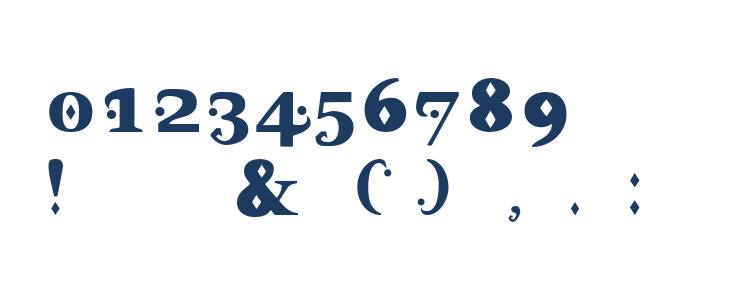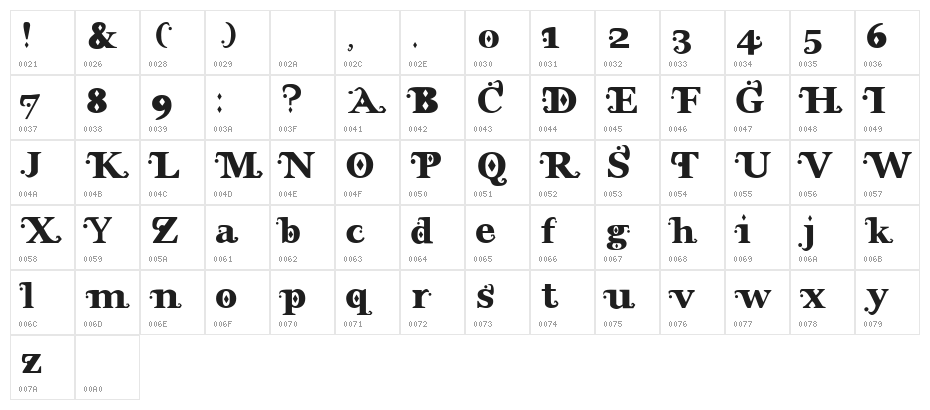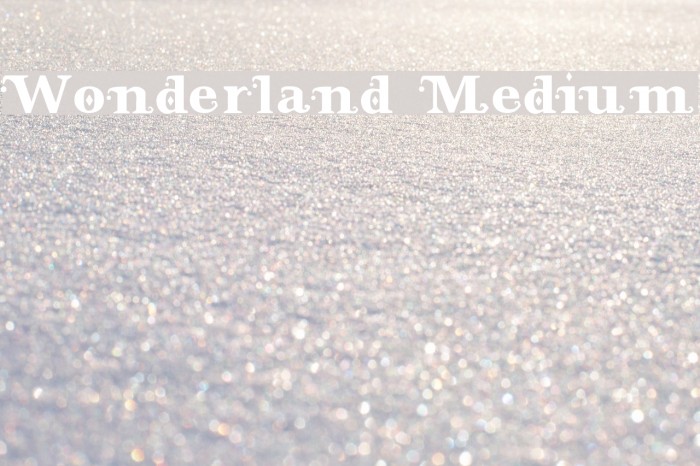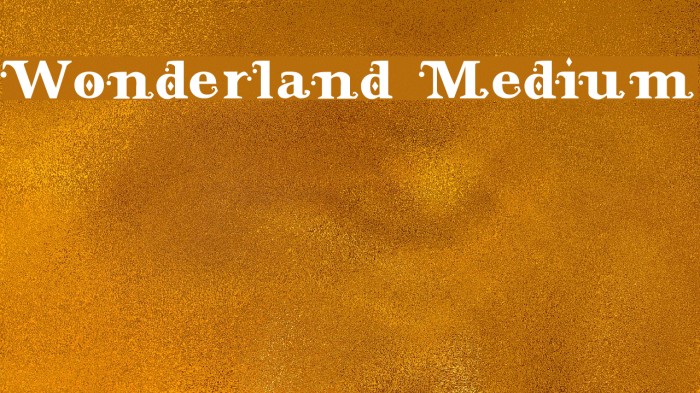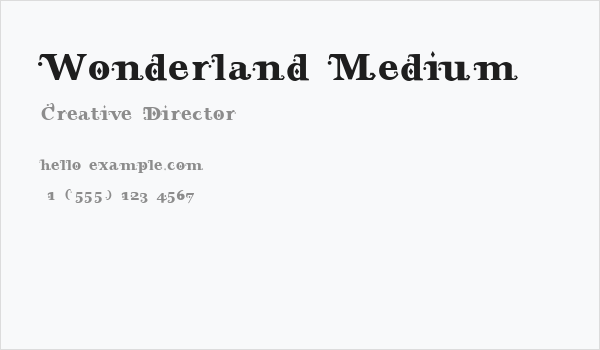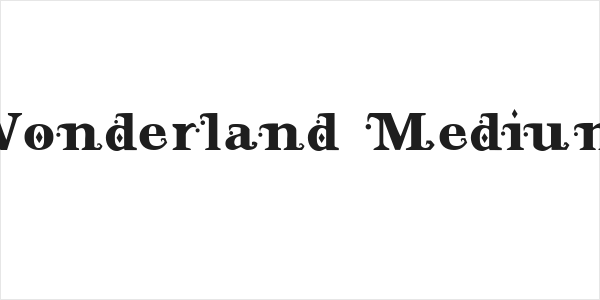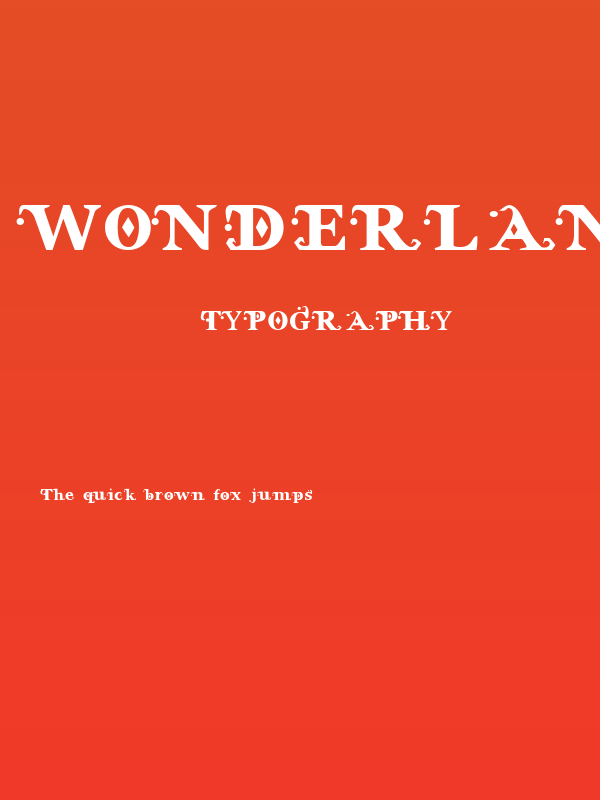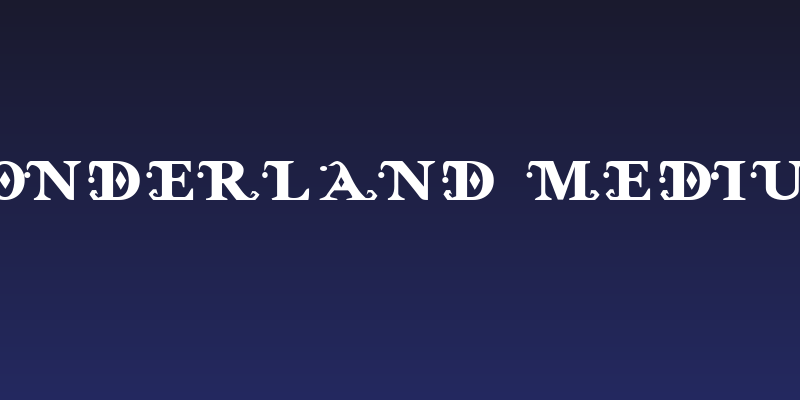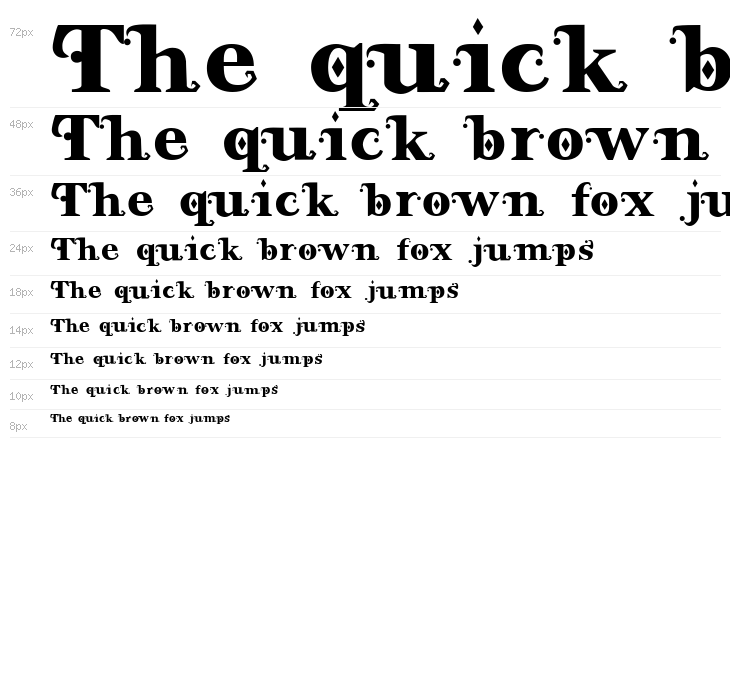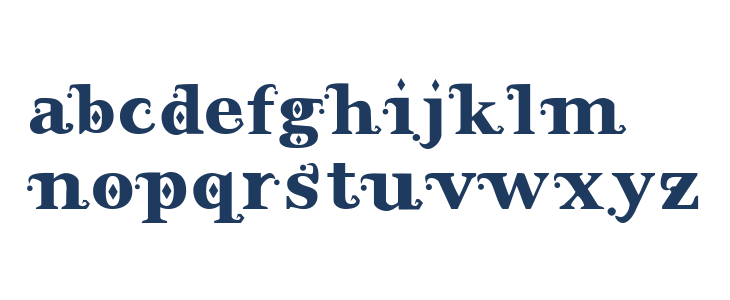
Wonderland Medium Font
Wonderland Medium Description
This font features a whimsical and decorative style, characterized by unique embellishments on each letter. The serifs are pronounced and ornate, adding a playful yet sophisticated touch. The uppercase letters are bold and striking, while the lowercase letters maintain a consistent style with slightly less emphasis. Numbers and special characters follow the same decorative theme, ensuring a cohesive look across all glyphs. The overall design is reminiscent of a fantasy or storybook aesthetic, making it ideal for creative and imaginative projects.